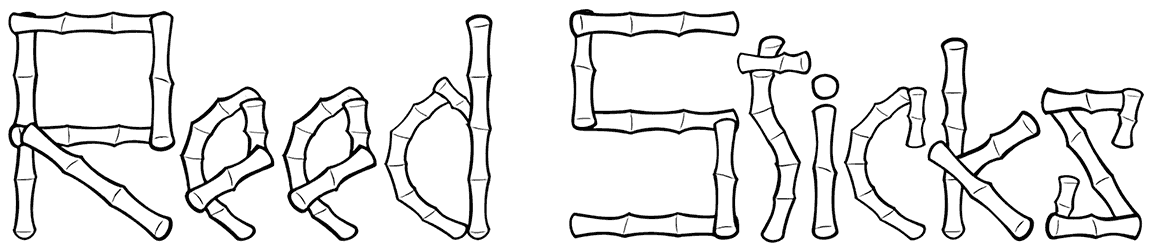
Reed Sticks Font
Designed byDcoxy - Greg Medina
Do you need to use a different and special style for the design of your words? This decorative font, which is called Reed Sticks, provides you with a hand-drawn item with a catchy mood. Even if this bamboo font doesn’t offer numbers, you can count on it for many creative items like posters, games, comics, apparel, and so forth.